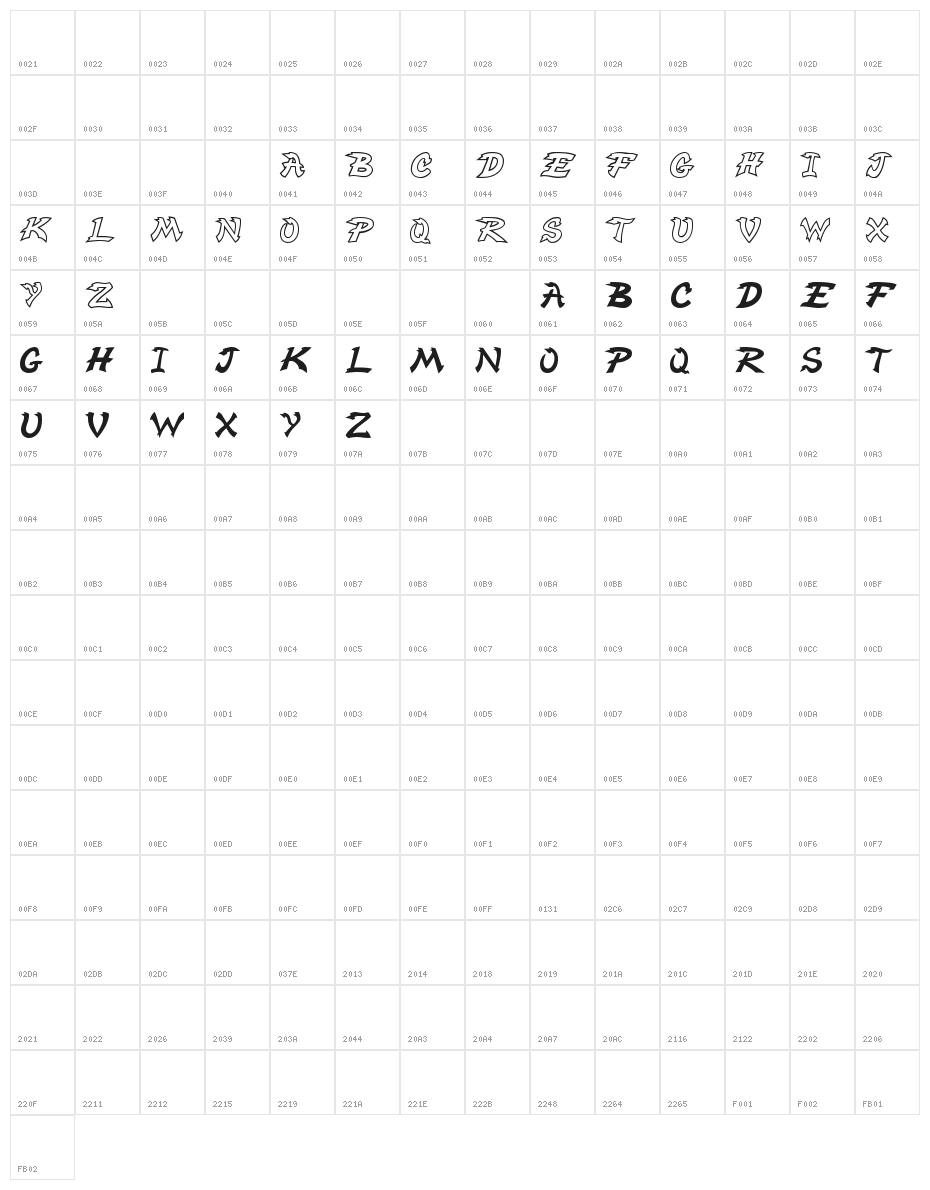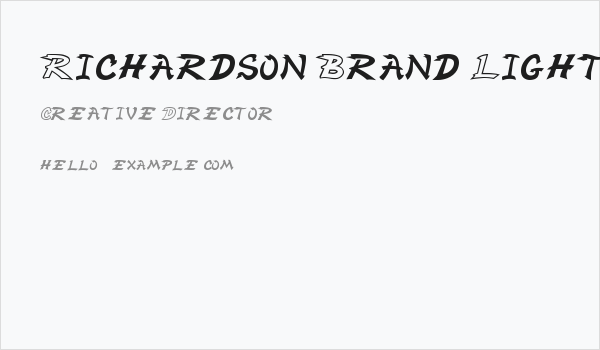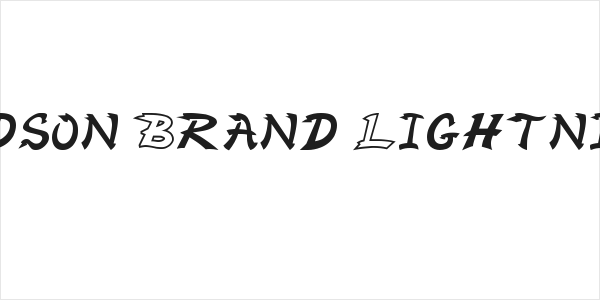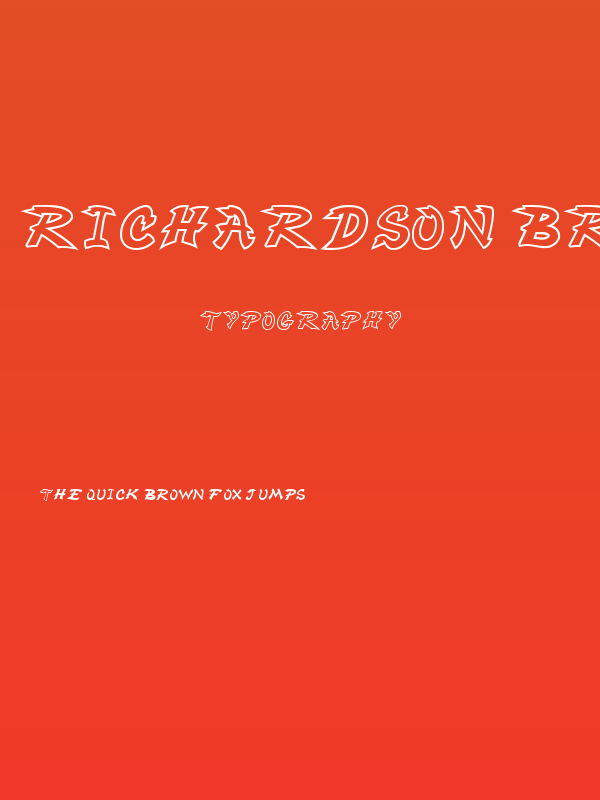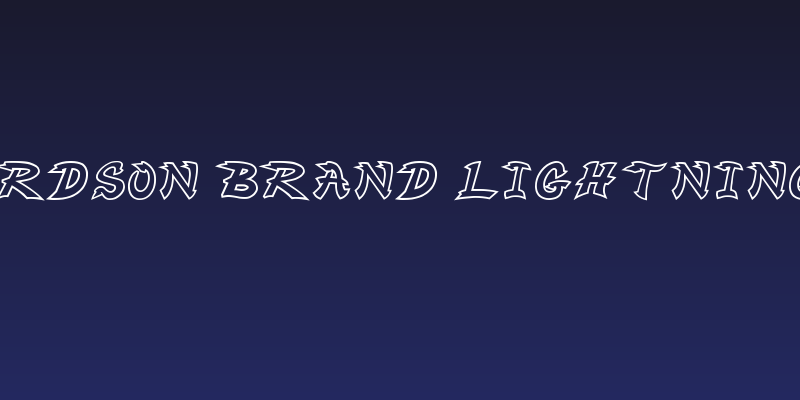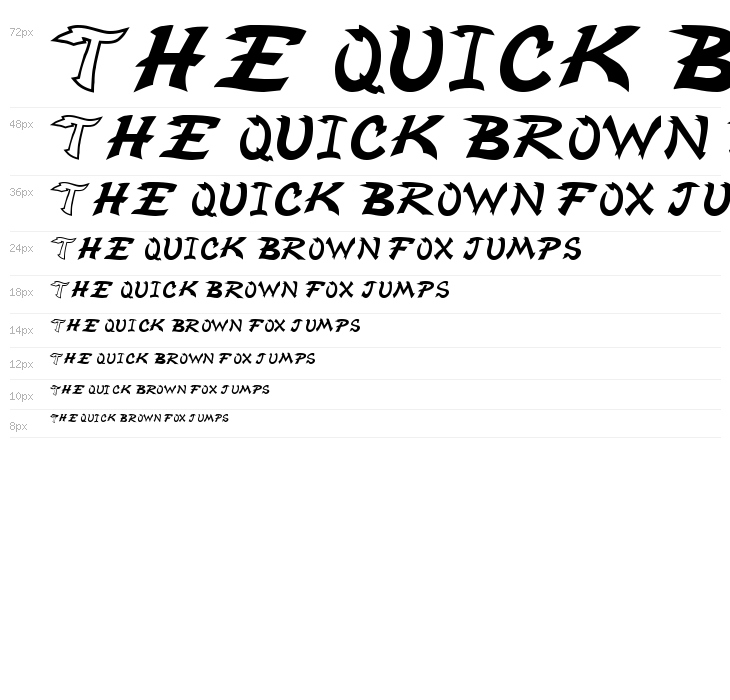
Richardson Brand Lightning Bolt Font
Richardson Brand Lightning Bolt Description
This font features a dynamic and energetic design, characterized by sharp, angular strokes that mimic the jagged appearance of lightning bolts. The uppercase letters are bold and impactful, with each character exhibiting unique, pointed serifs that enhance the font's electrifying aesthetic. The lowercase letters maintain this striking style, ensuring consistency across all text. The numbers and special characters are equally bold, integrating seamlessly with the alphabetic characters. This font's distinctive style is perfect for projects that require a sense of power and excitement.
Use CaseLogos, Headlines
Proposed ProjectsIdeal for sports team branding, action movie posters, and dynamic logo designs.